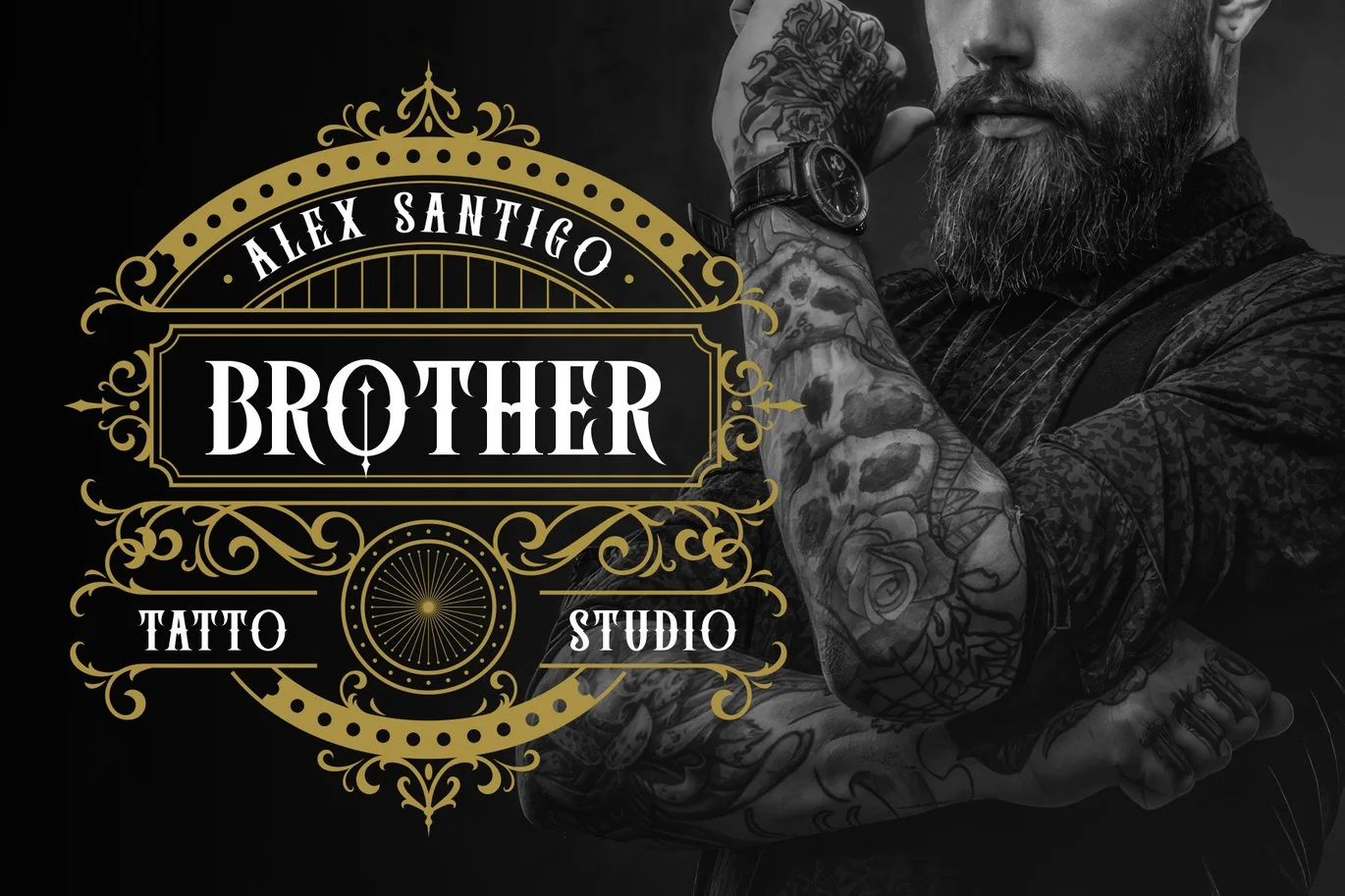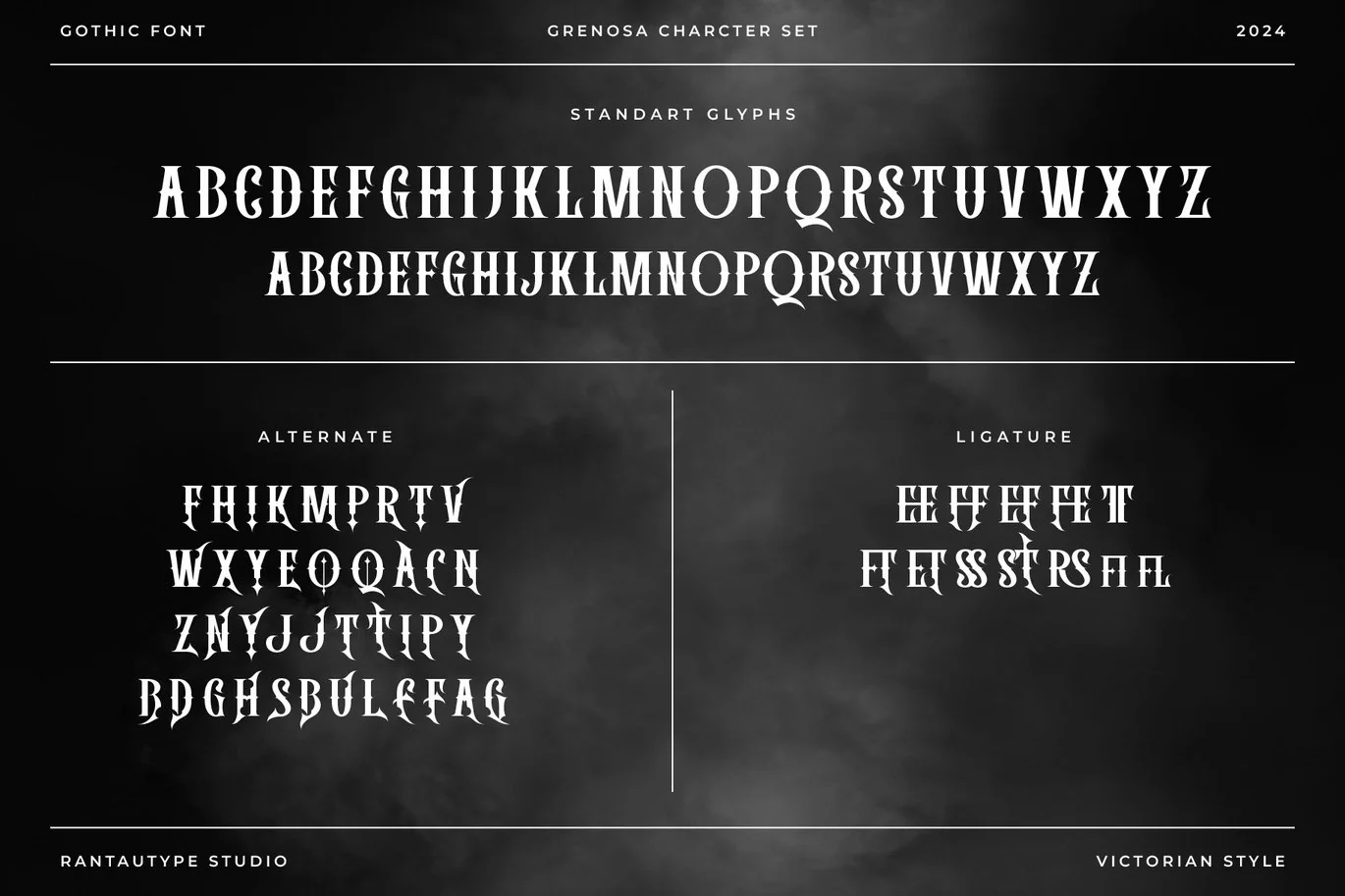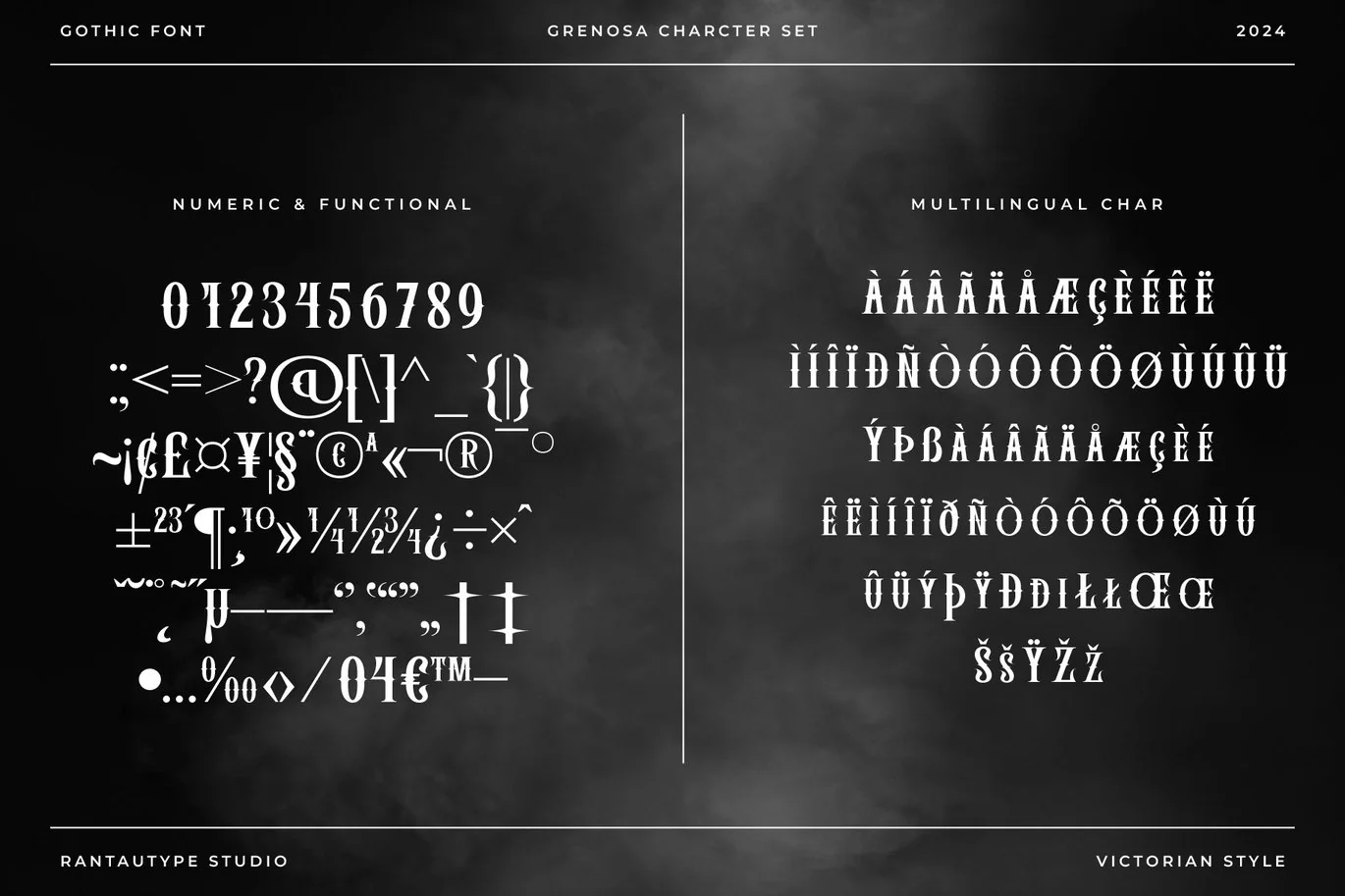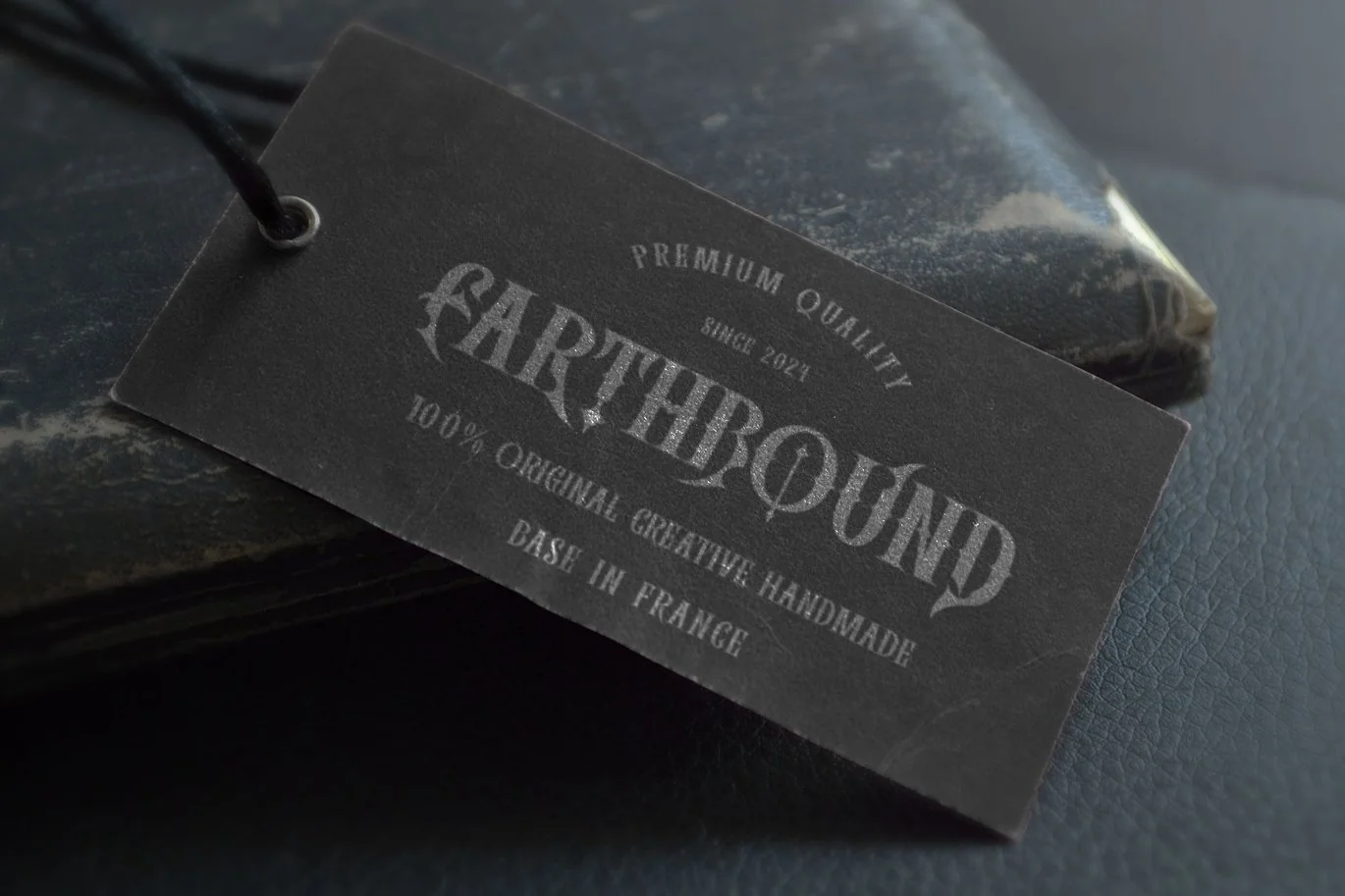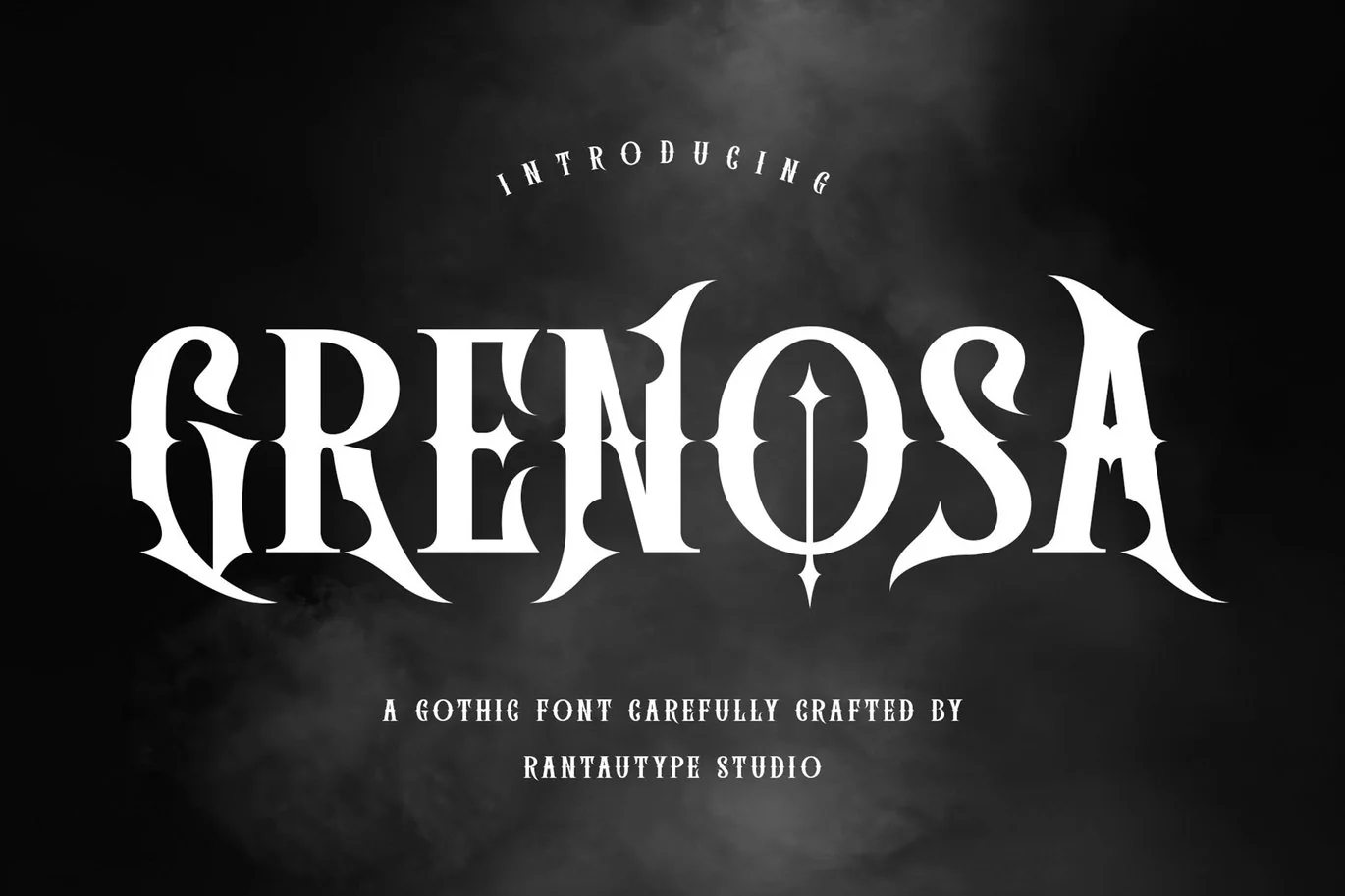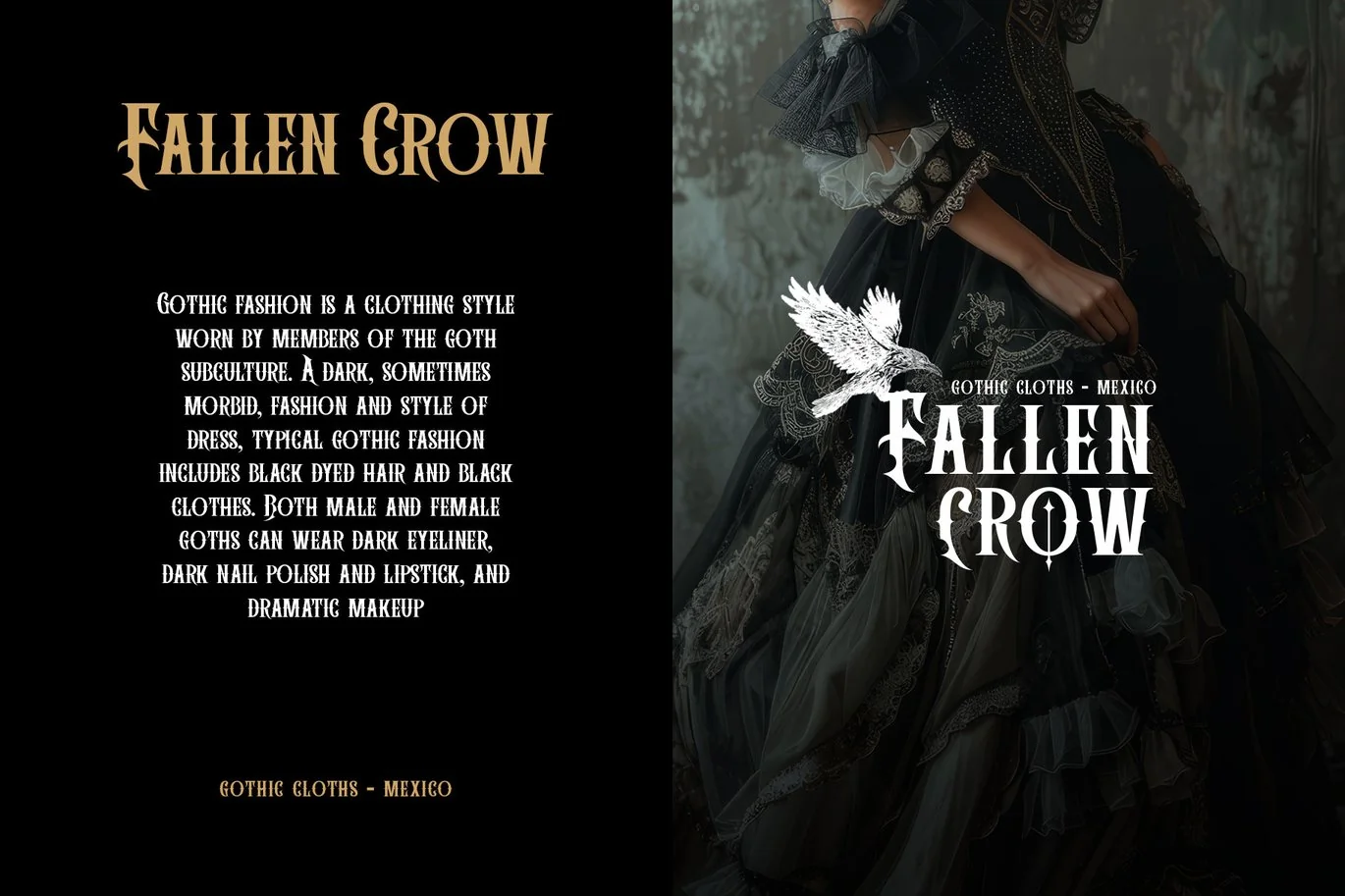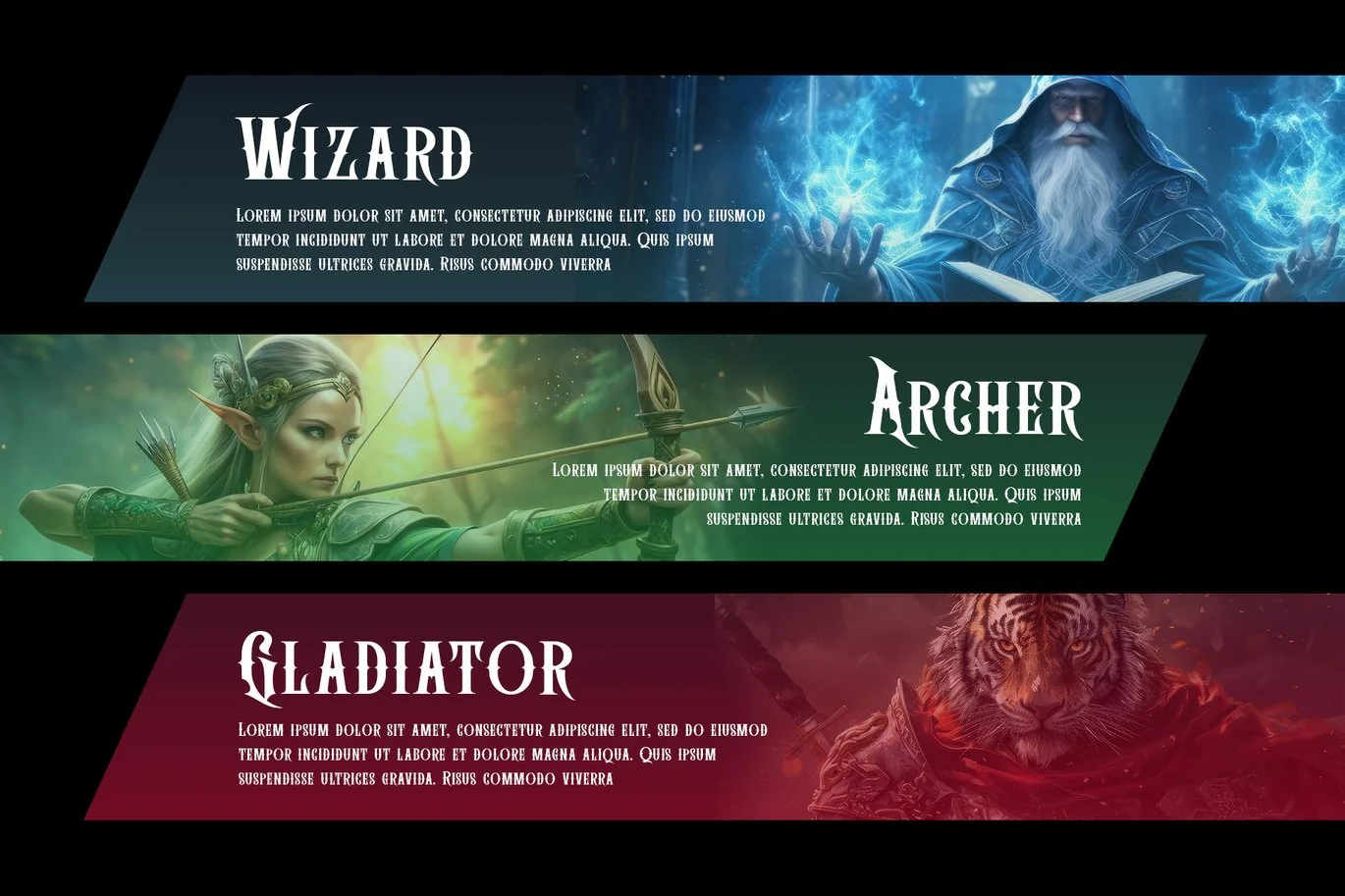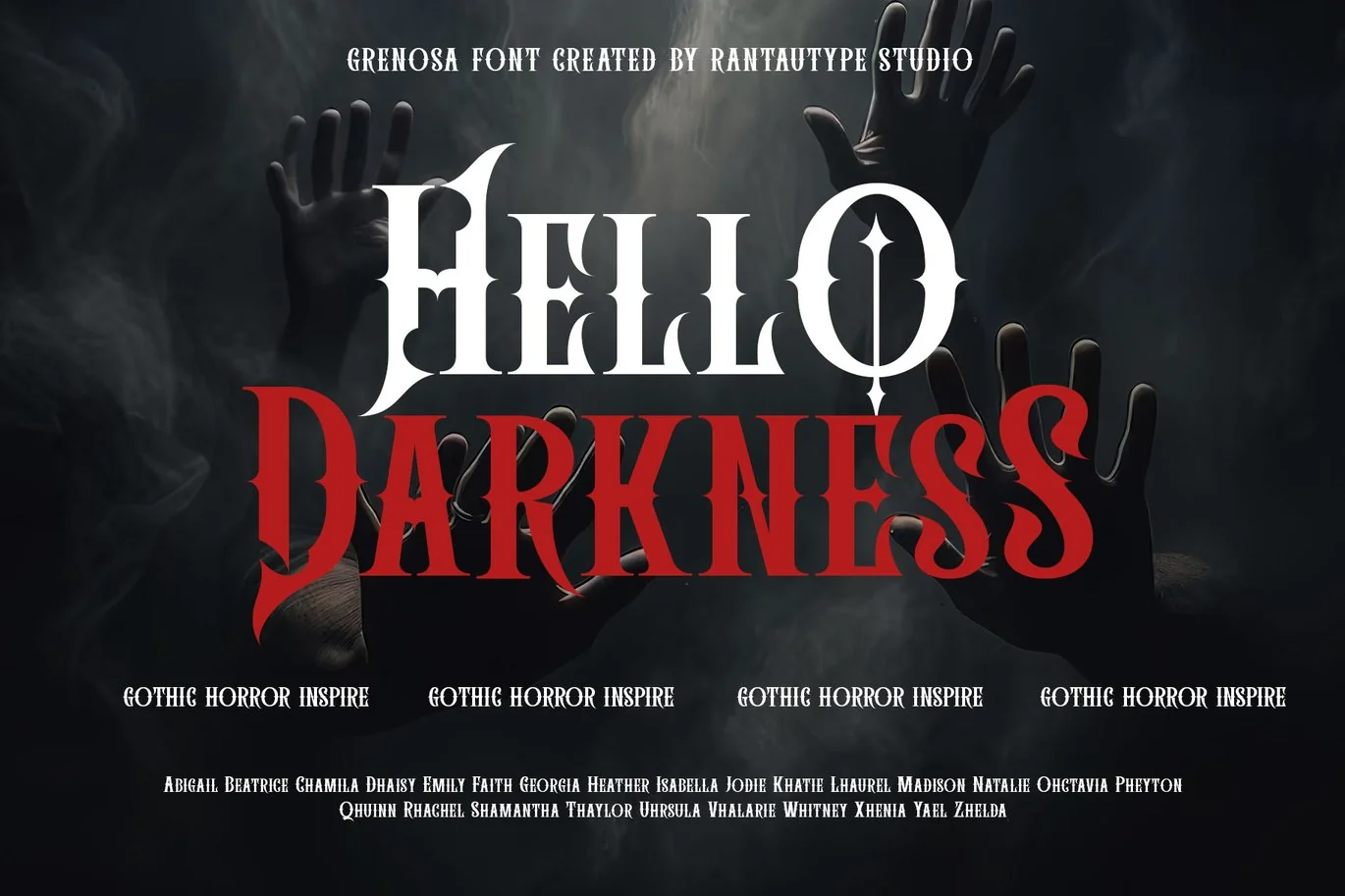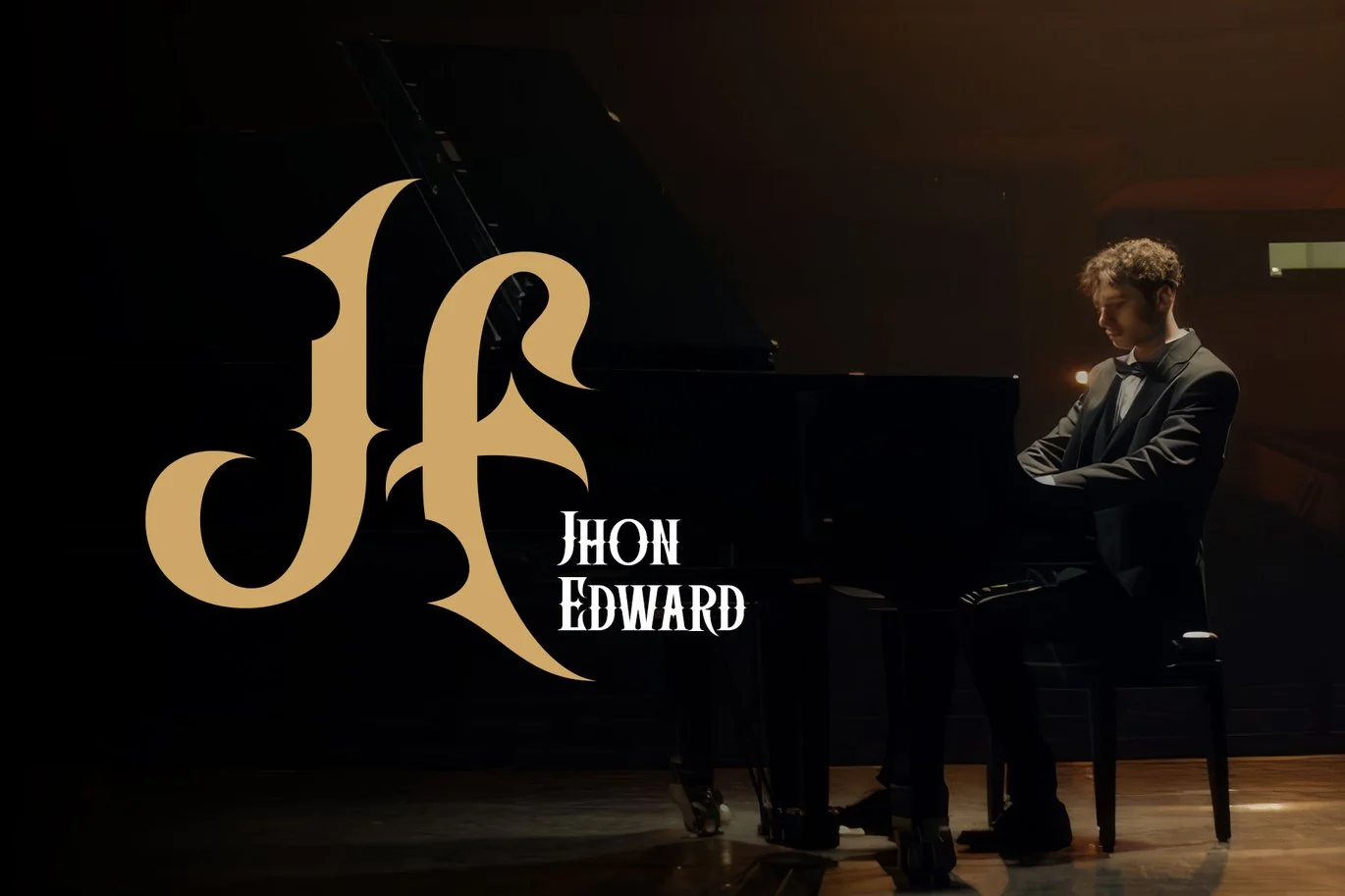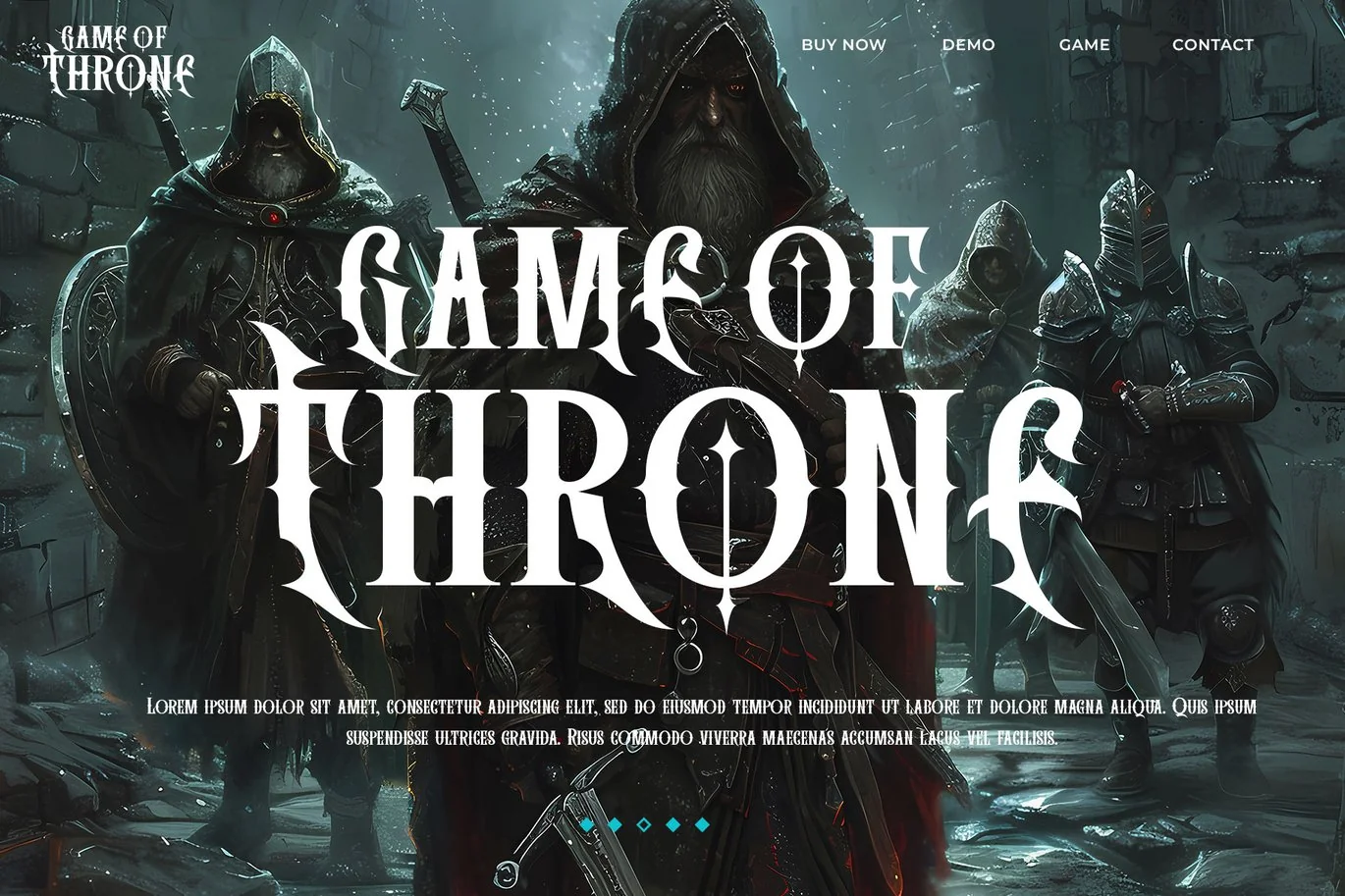
Grenosa Gothic Font
Grenosa is gothic font with metal and victorian style. Grenosa bring sophisticated of gothic font into horror, dark and fantasy visual design. Grenosa come with more versatile with the addition of stylistic alternates that you can mix and match to make your design stand out even more.
Grenosa is a perfectly choice for any creative endeavor, chic, lifestyle design such as logotype, advertisements, watermark on photography, stationery, branding project, display and magazine, game design, invitation, corporate brand, product design, label, business project and other project with gothic/fantasy taste.
- Standart Glyphs